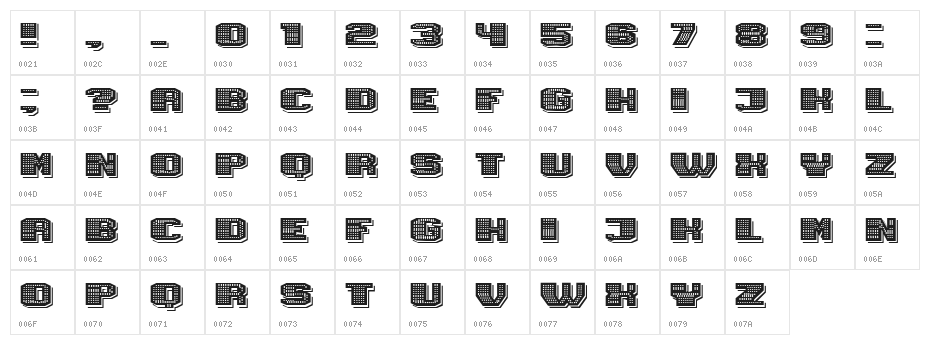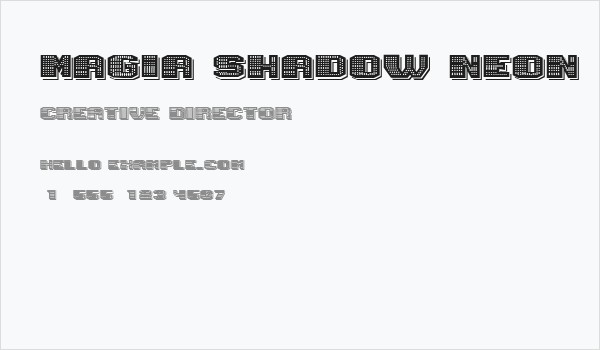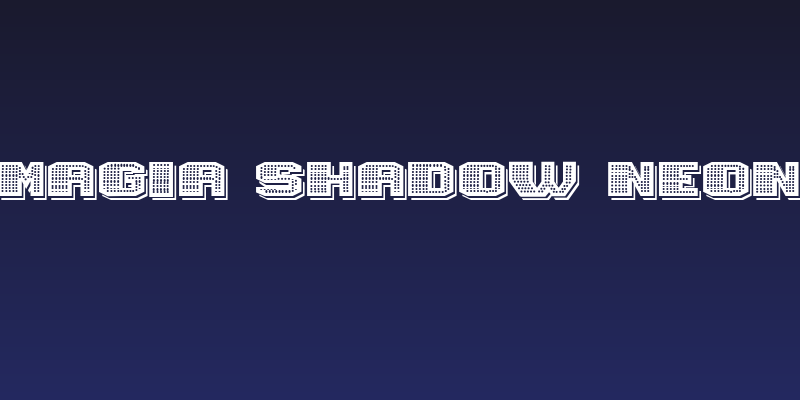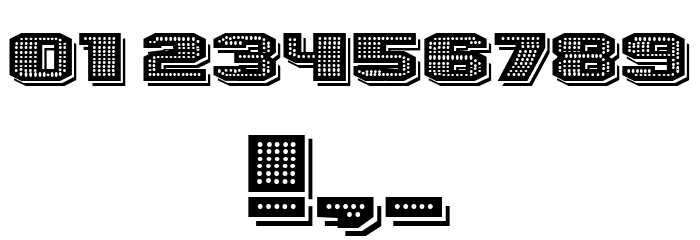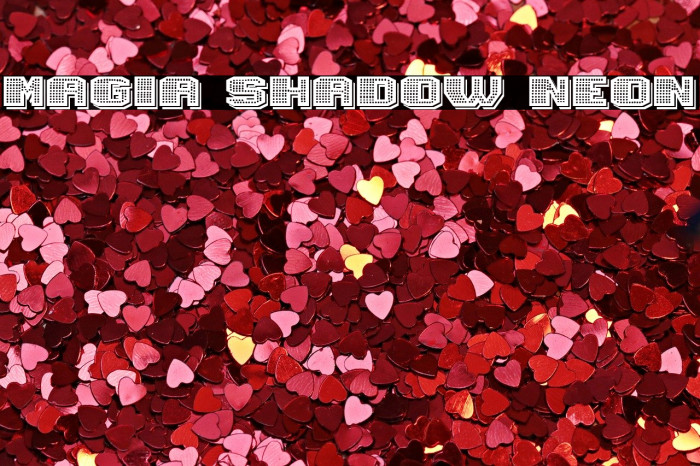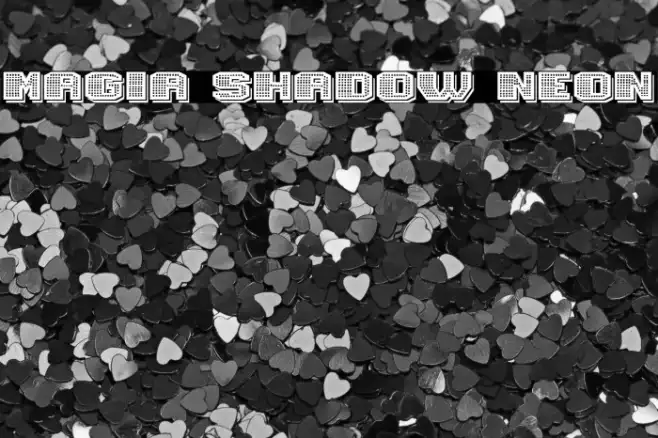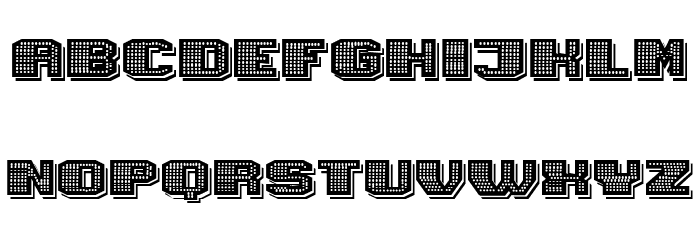
Magia Shadow Neon Font
Magia Shadow Neon Description
This font features a bold, decorative style with a shadow effect that gives it a three-dimensional appearance. The characters are outlined with a series of dots, creating a neon-like glow that adds a modern and playful touch. The uppercase letters are consistent in height and width, providing a uniform look. The numbers and special characters follow the same design, ensuring cohesion across all elements. The font's unique design makes it stand out, ideal for eye-catching displays and creative projects.
| Proposed Projects | Ideal for signage, posters, event invitations, and branding that requires a modern and playful aesthetic. |